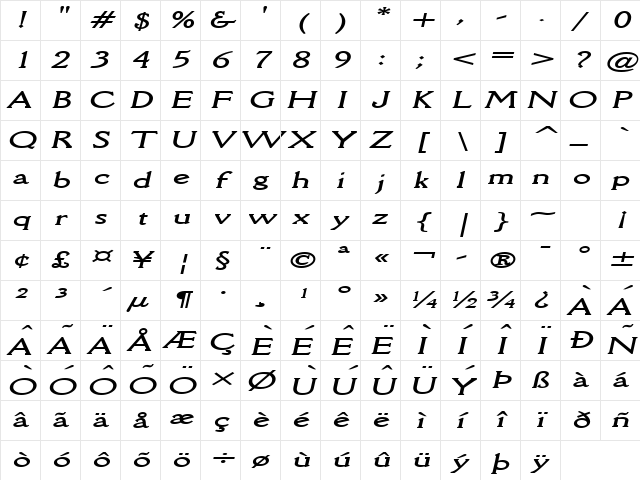
Rory Extended BoldItalic
Rory Extended Family
Rory Extended BoldItalic
Design Context for Rory Extended
Rory Extended is a composed and adaptable typeface that performs quietly and consistently across a wide range of design contexts. The slanted form adds forward momentum and visual energy. Its bold stroke weight gives it real presence on the page.